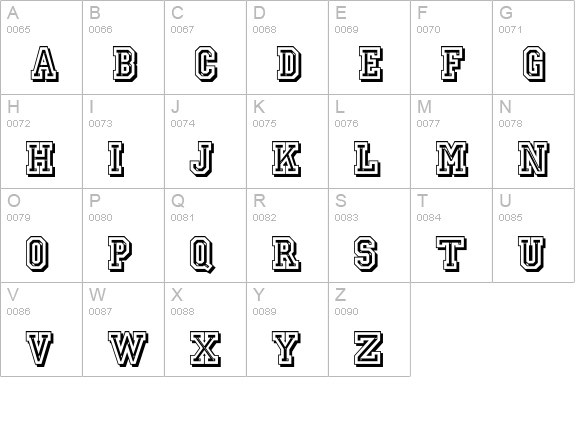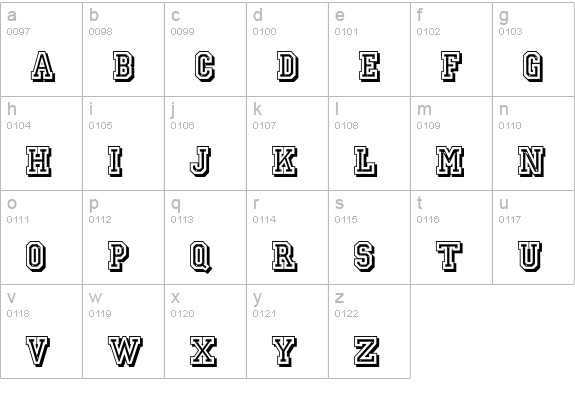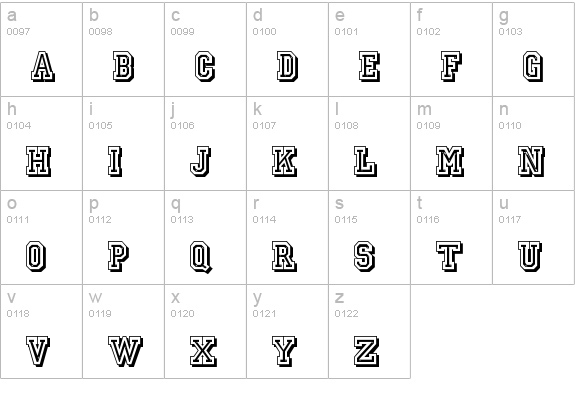
JerseyLetters Font Details
JerseyLetters font is a versatile and dynamic typeface that is perfect for all your lettering needs. With its bold and athletic design, it captures the spirit of sports and competition. Whether you are designing a sports logo, creating a team jersey, or simply adding a touch of energy to your designs, JerseyLetters font is the ideal choice. This font features clean lines and sharp edges, giving it a modern and sleek appearance. The letterforms are bold and impactful, making them stand out on any project. The uppercase letters are particularly eye-catching, with their strong and confident presence. One of the best things about JerseyLetters font is that it is free. That's right, you can download this amazing font without spending a dime. It is available for free download at FontsMarket.com, a leading platform for high-quality and stylish fonts. FontsMarket.com offers a wide range of fonts for various purposes, and JerseyLetters font is just one of the many gems you can find there. Whether you are a professional designer, a sports enthusiast, or simply someone who appreciates beautiful typography, JerseyLetters font is a must-have in your collection. Its versatility and boldness make it suitable for a wide range of projects, from branding and advertising to apparel design and social media graphics. So why wait? Head over to FontsMarket.com and download JerseyLetters font for free today. Let your creativity soar with this fantastic typeface and make your designs truly stand out.